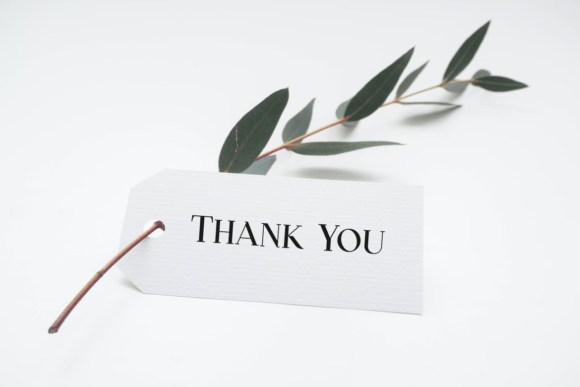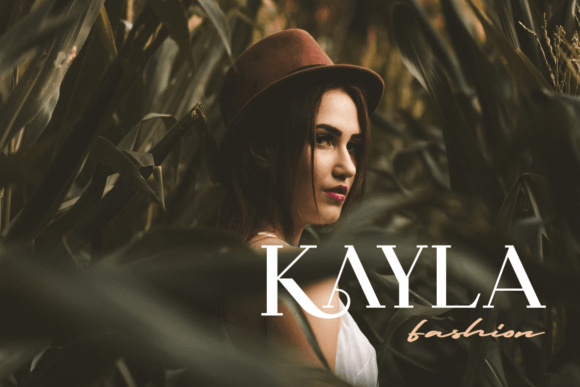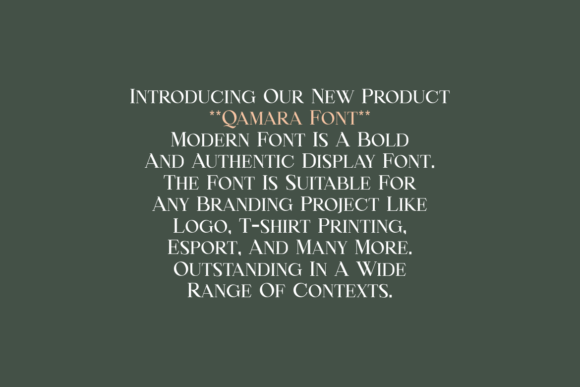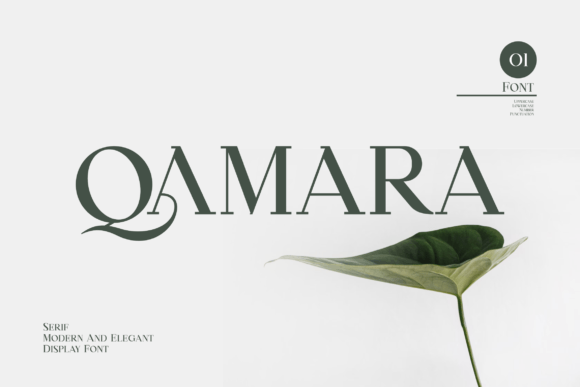
Introduction to Qamara Font
Qamara is a bold and assertive serif font.
Key Features of Qamara Font
Why Choose Qamara Font?
Qamara Font offers exceptional quality and versatility, making it a valuable addition to your design toolkit. Whether you’re creating for personal projects or commercial use, Qamara Font delivers professional results.